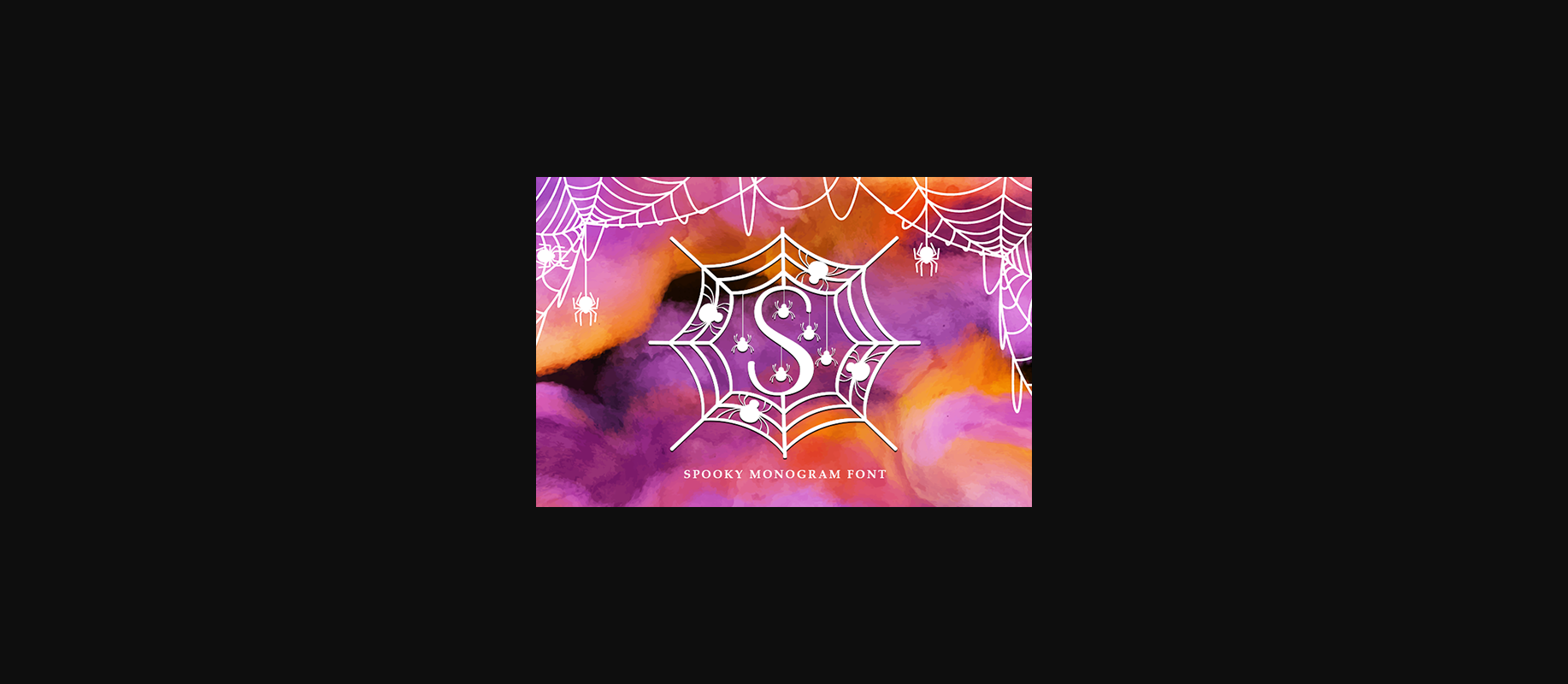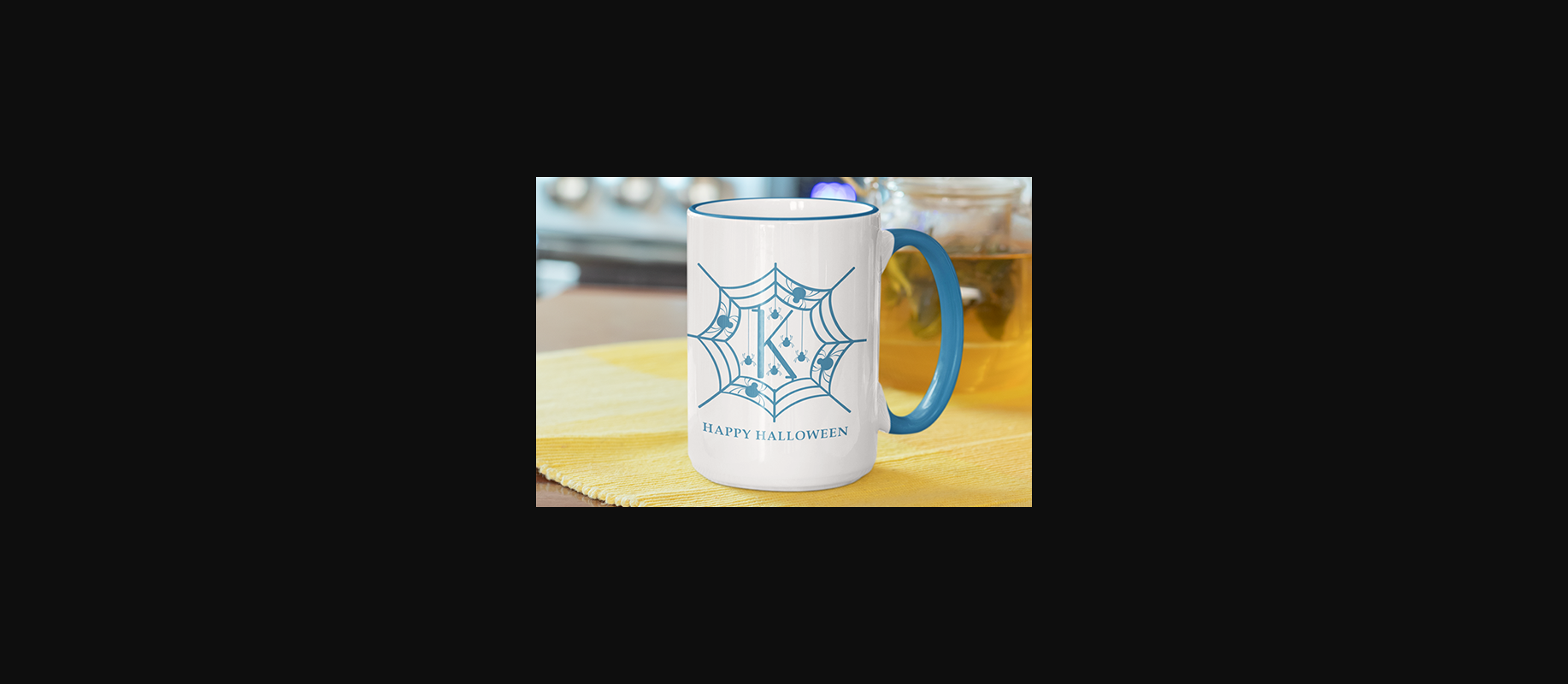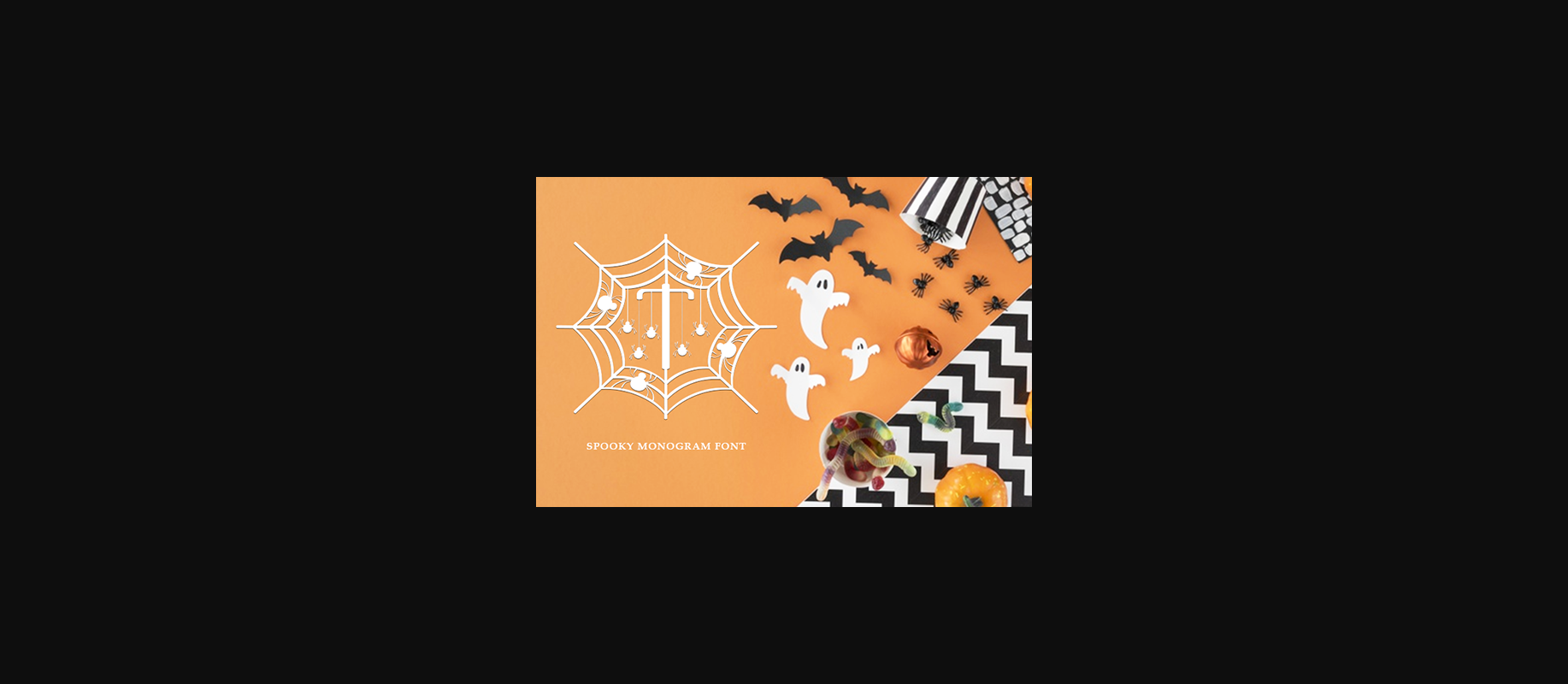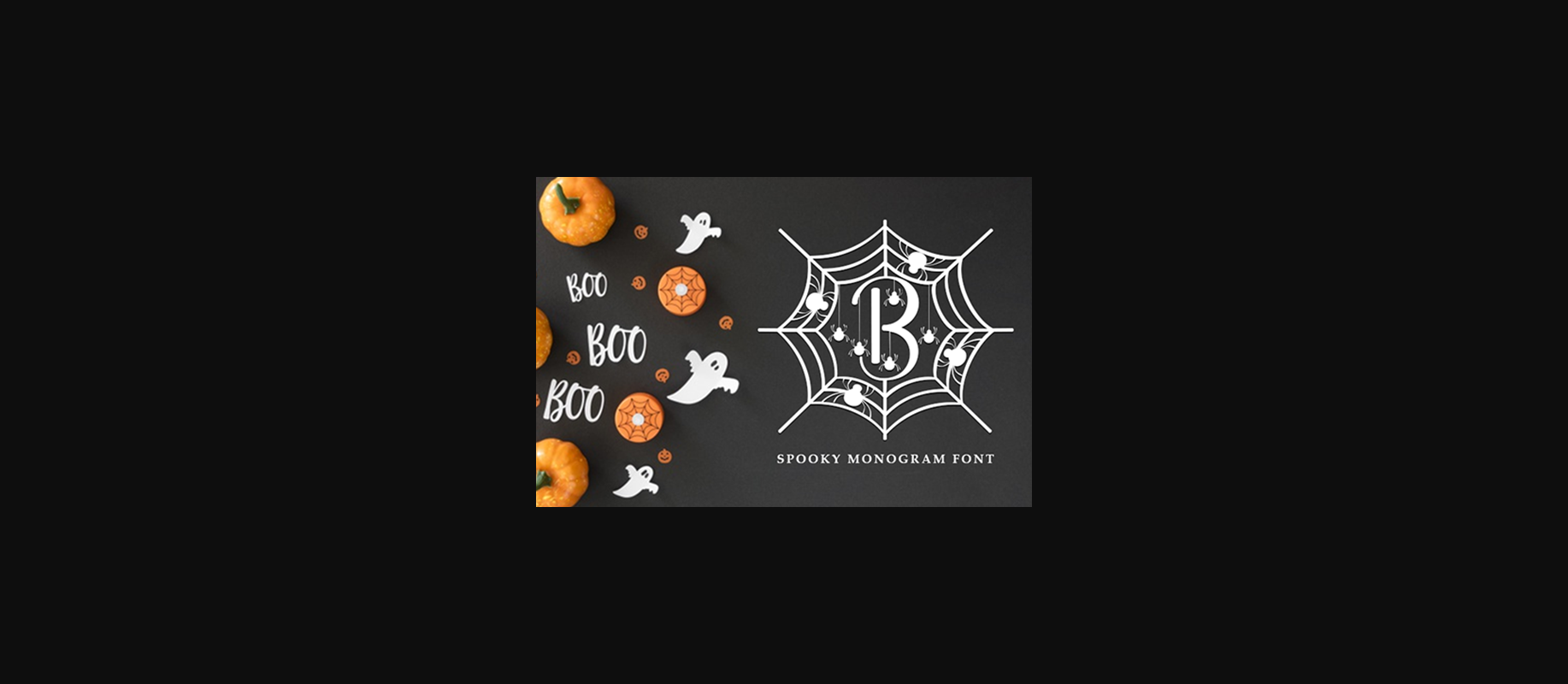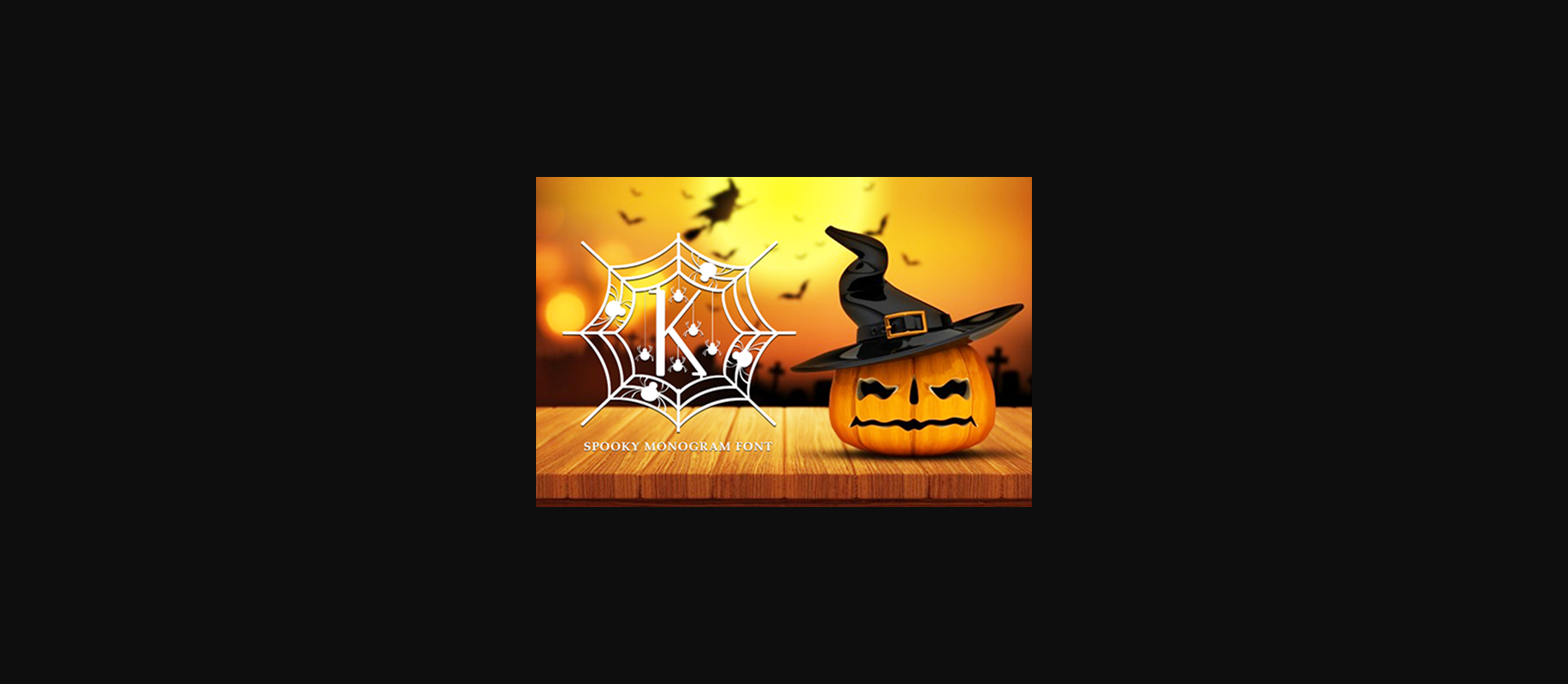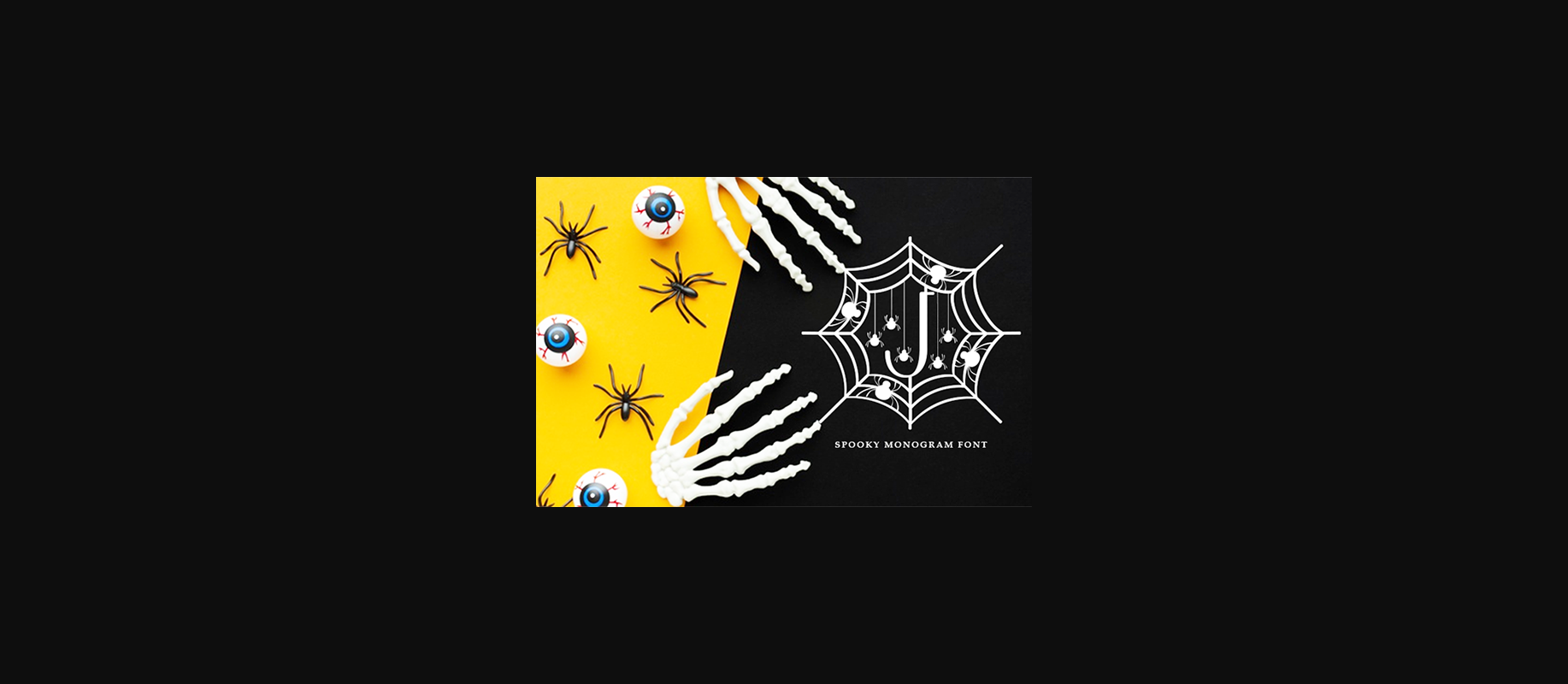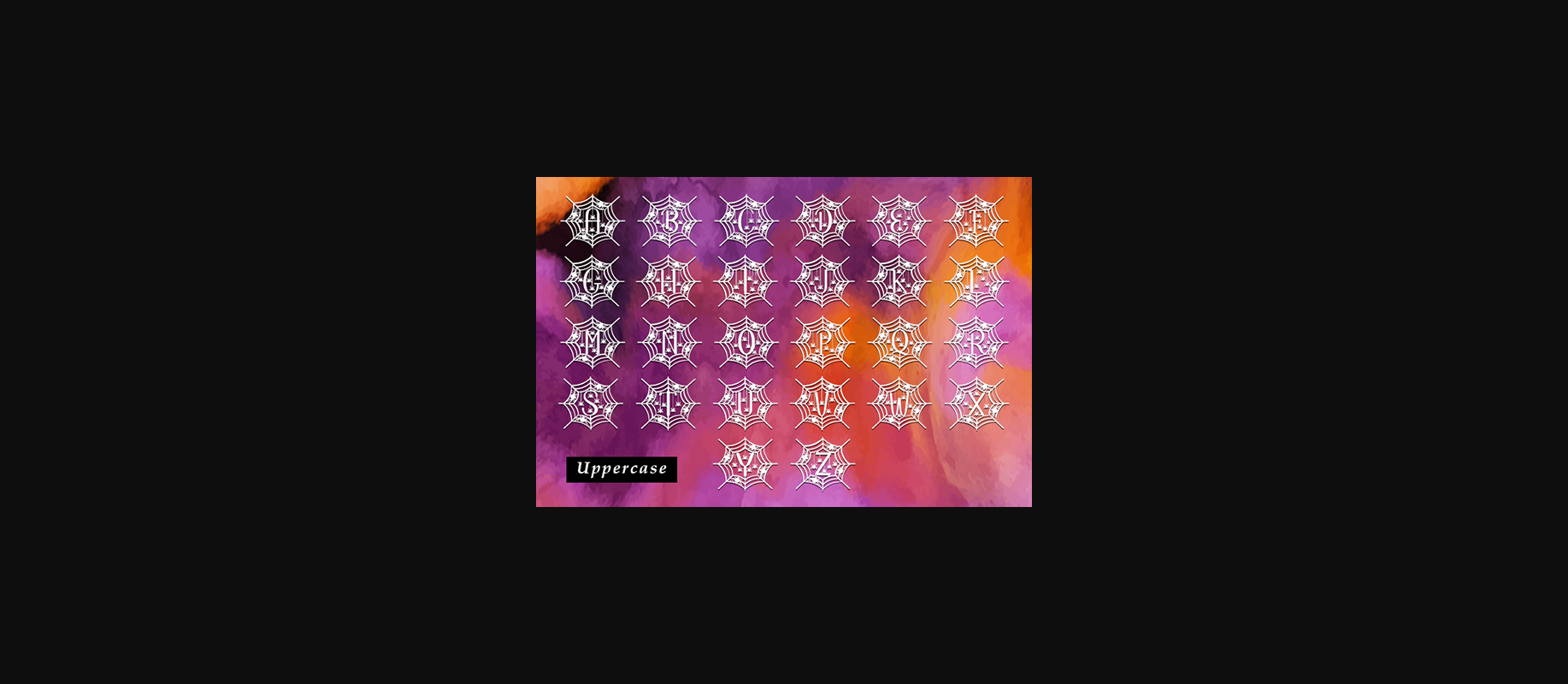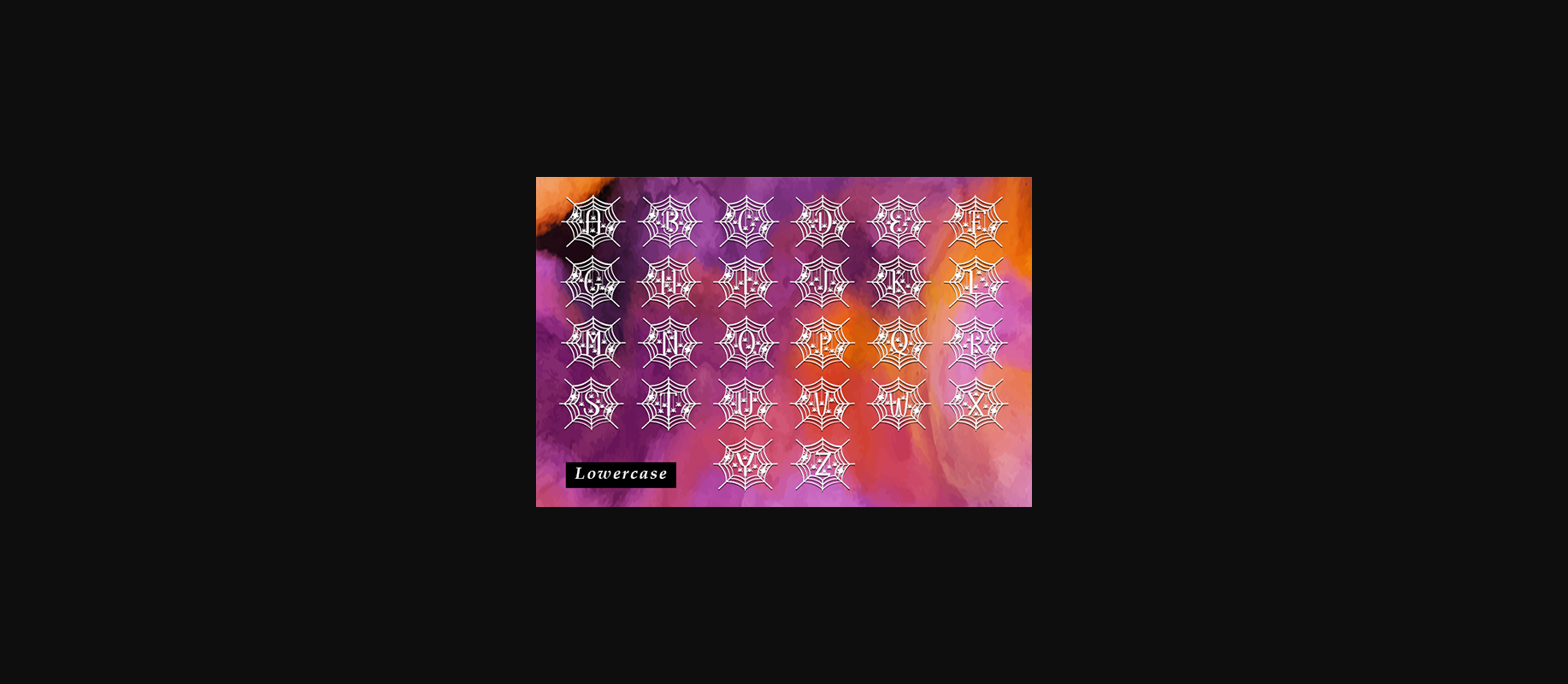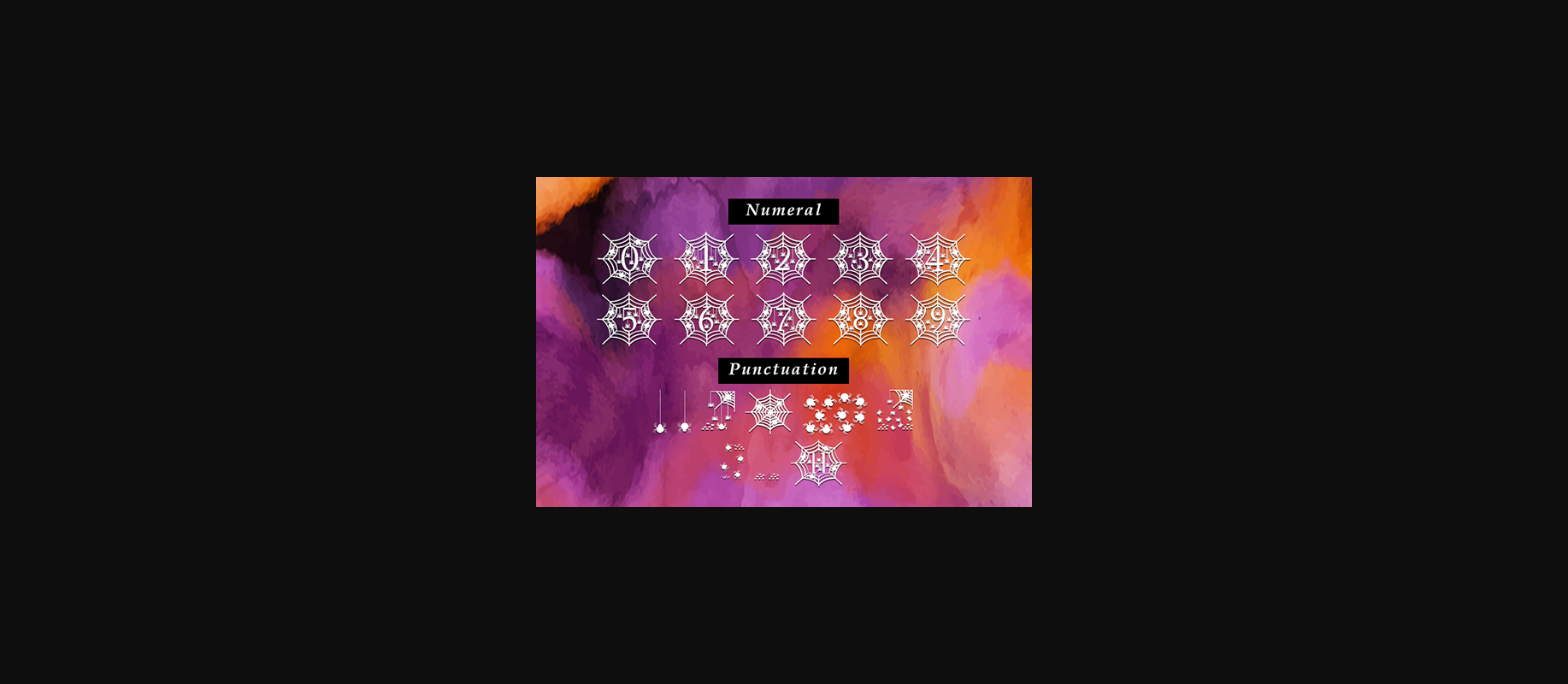
About Spooky Monogram Font
Spooky Monogram is an incredibly unique and spooky decorative font. Add it to each of your Halloween designs and make them stand out!